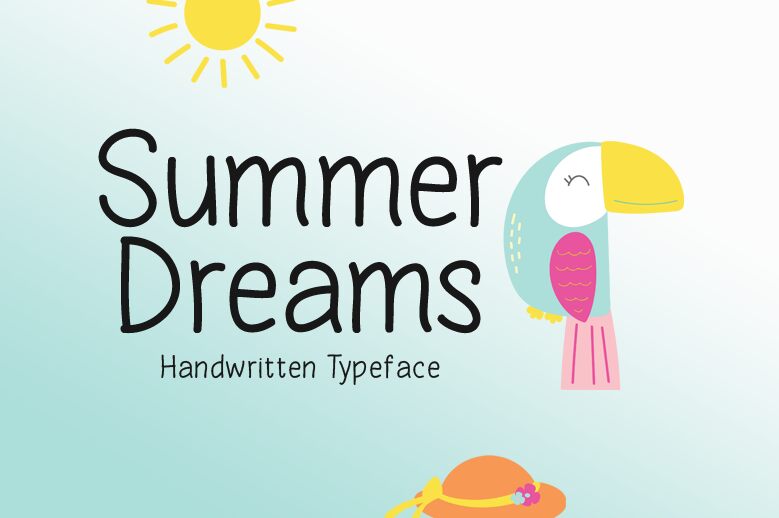
Summer Dreams
Summer Dreams, a captivating handwritten font by Md Shohail Bhuian, transports your projects to a whimsical realm.
Its semi-light weight exudes an effortless charm that is perfect for greeting cards, wedding invitations, and personal blogs. With its graceful strokes and unique letterforms, Summer Dreams adds a touch of elegance to branding materials, including logos and packaging designs. Let your imagination run wild as this font effortlessly brings warmth and nostalgia to book covers, quotes, and social media posts.
Unleash the dreamer within and elevate your creative endeavors with Summer Dreams font.